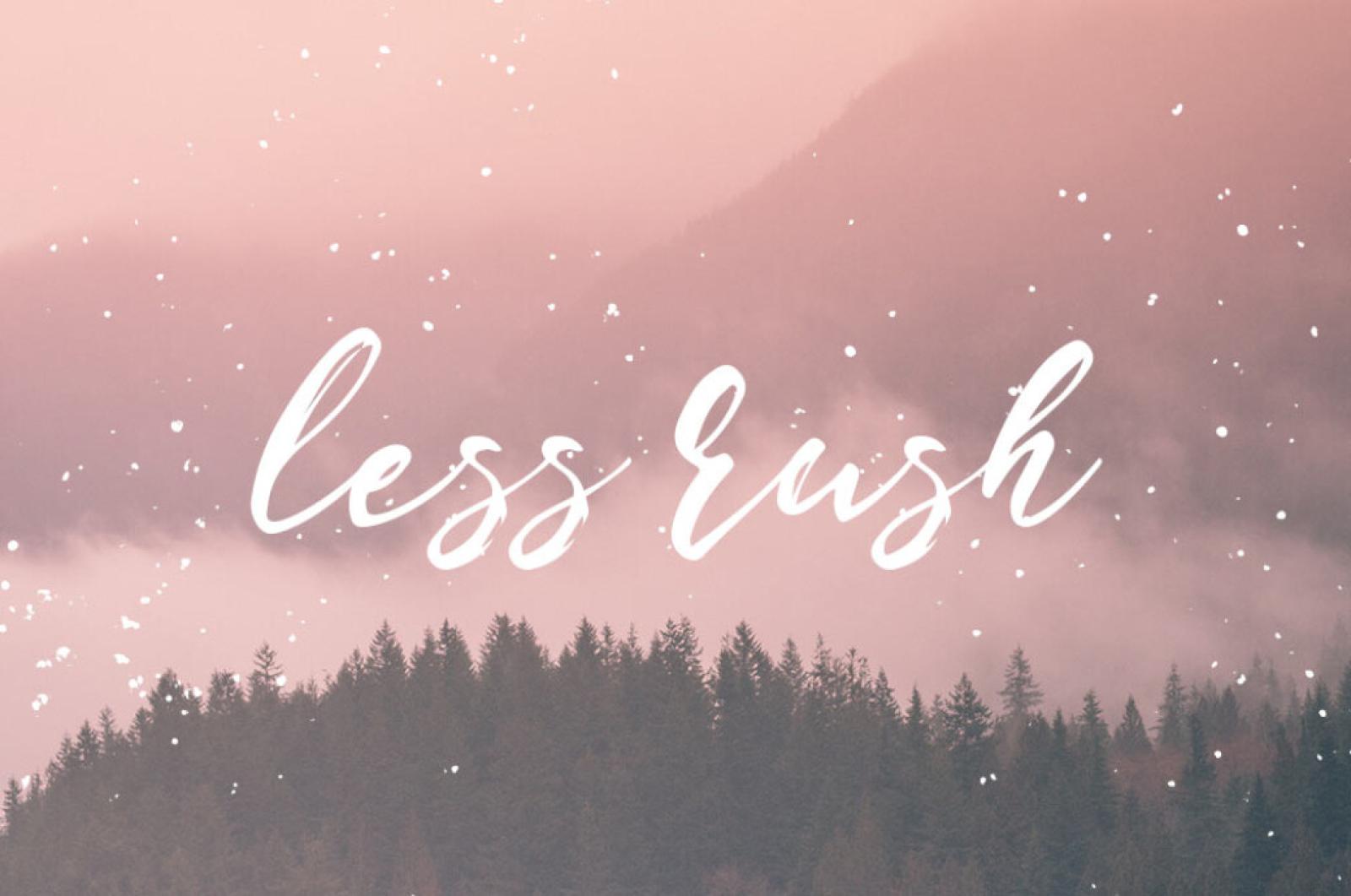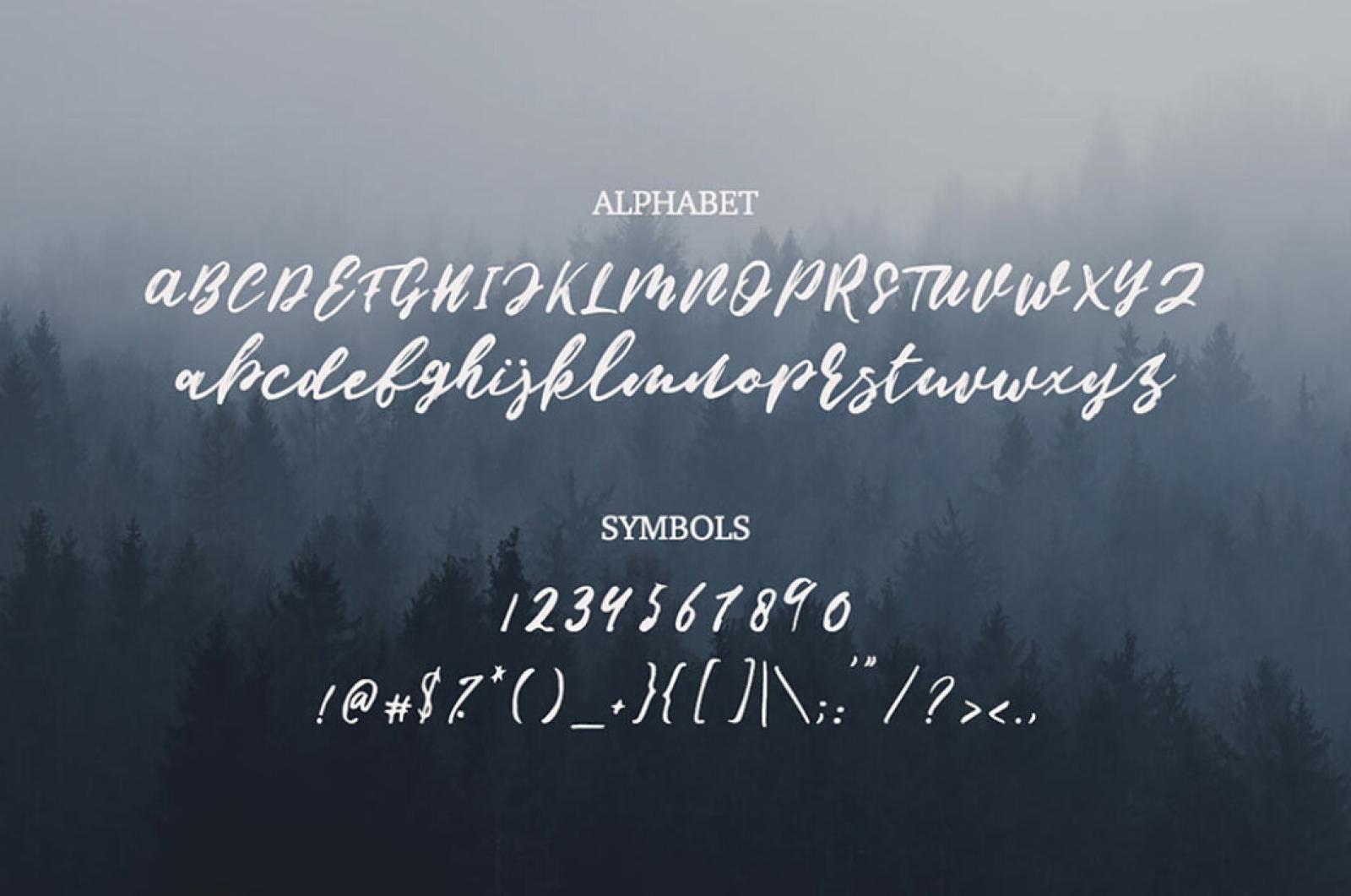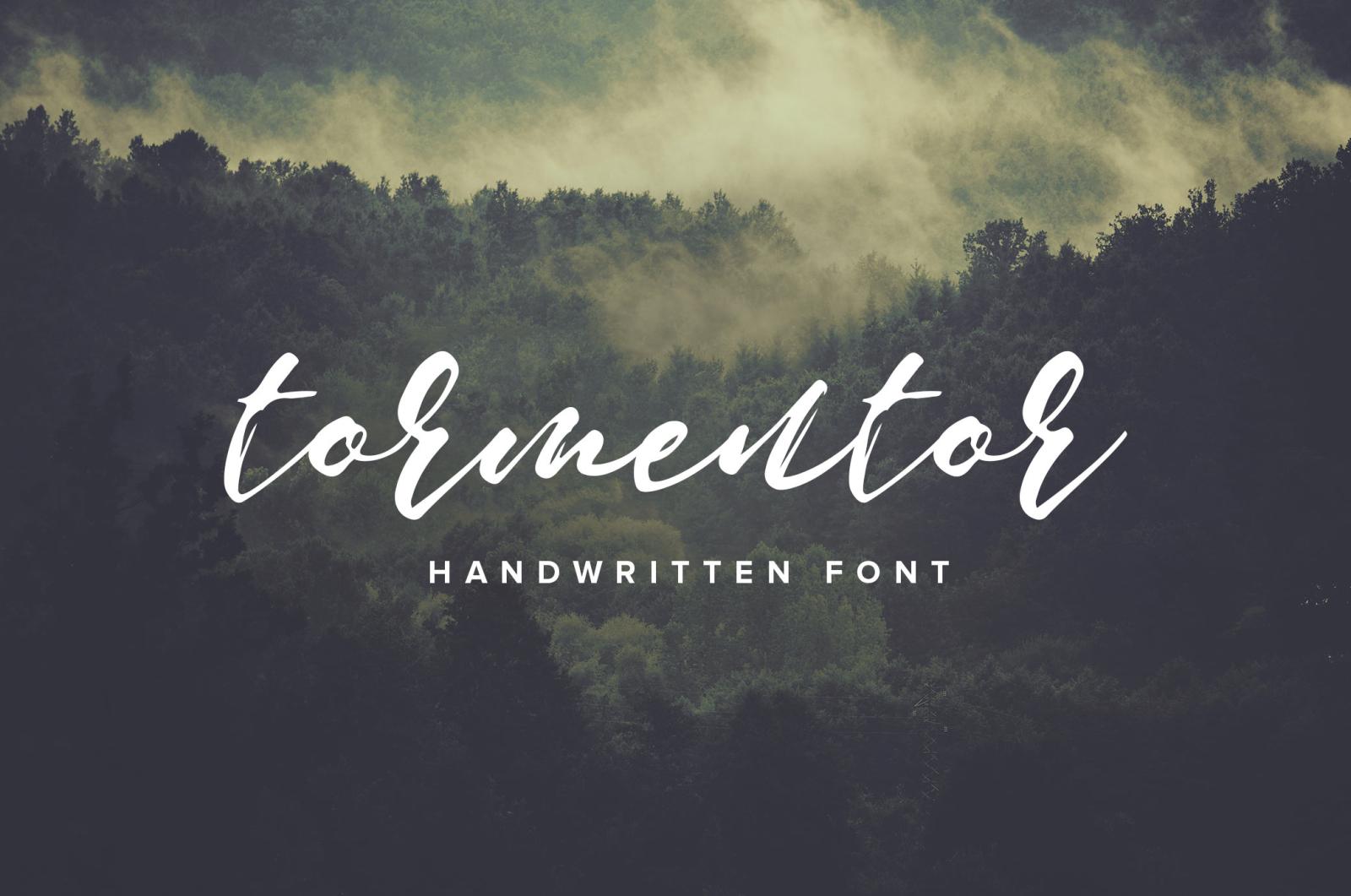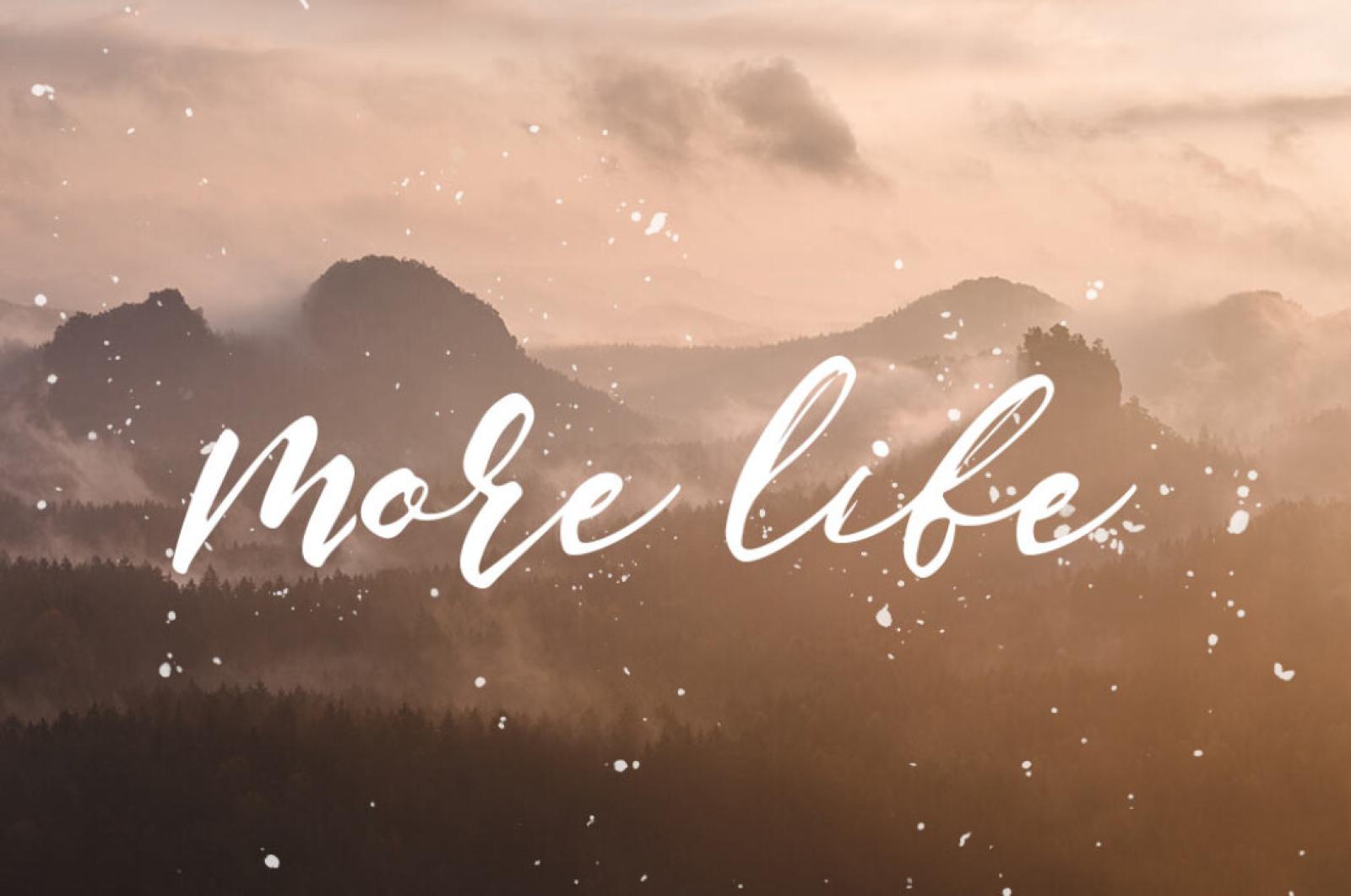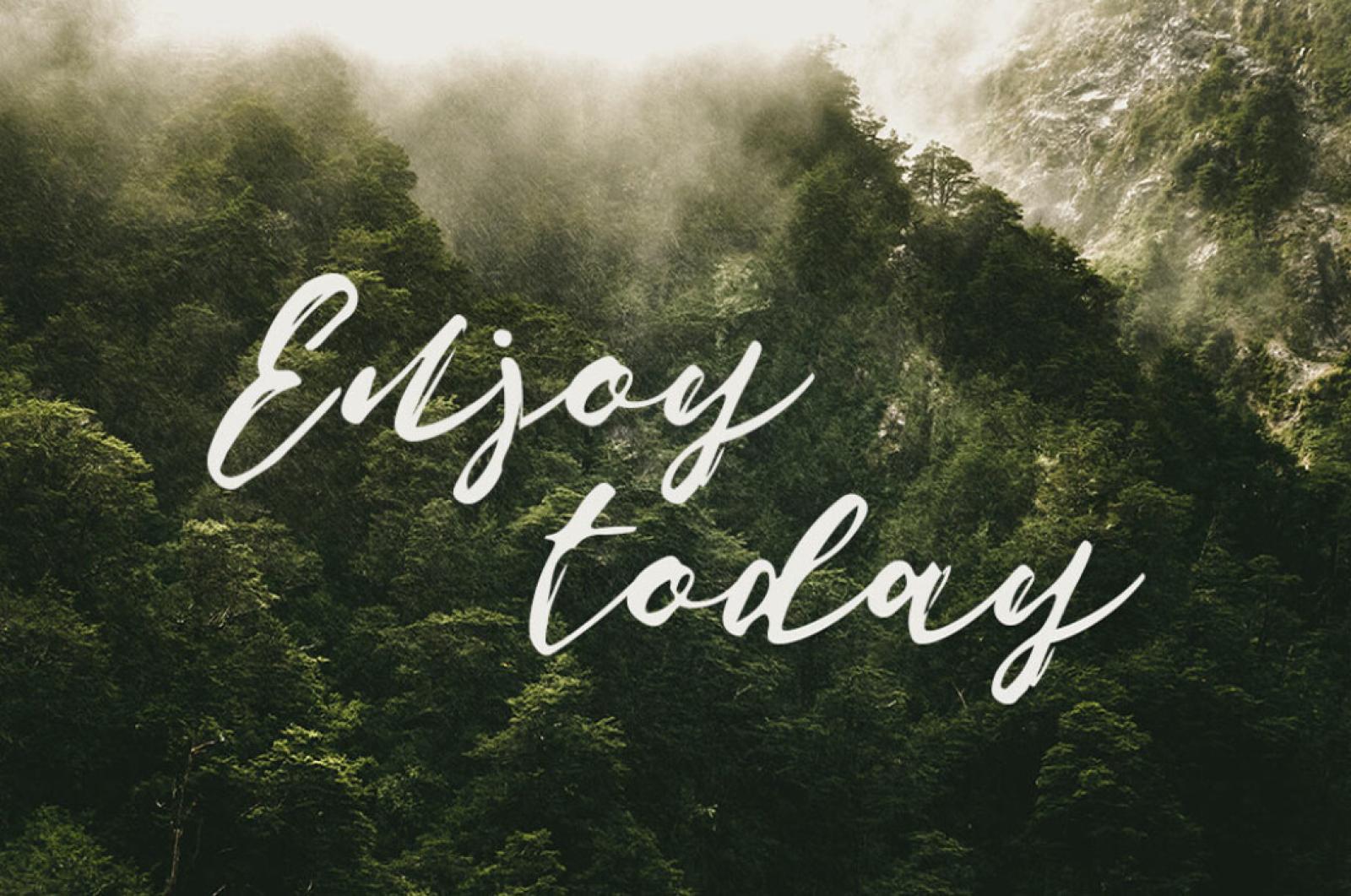
Tormentor Handwritten Font
Make it lovingly the hand-written brush font were with today favors any positive impulsion. Incontestably vibrant, with strong arctic character, it transforms a single project into a masterpiece.
It contains just everything for creative workflow: punctuation, numerals, both lowercase and uppercase letters. The last ingredient to add for the ultimate success of your artwork is the caption youll have composed for Tormentor, sure! Excellent for any purposes: cards, invitations, web, branding, clothing design, printed production, and press.